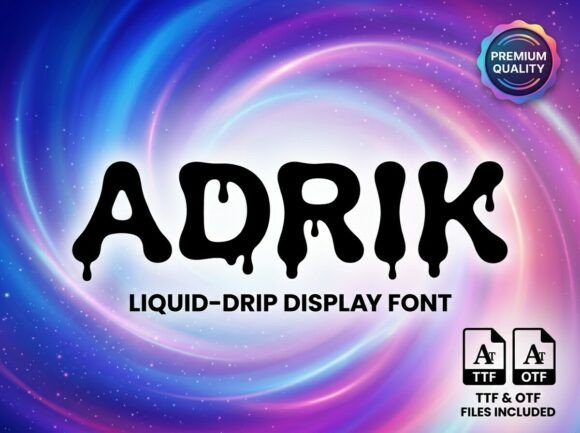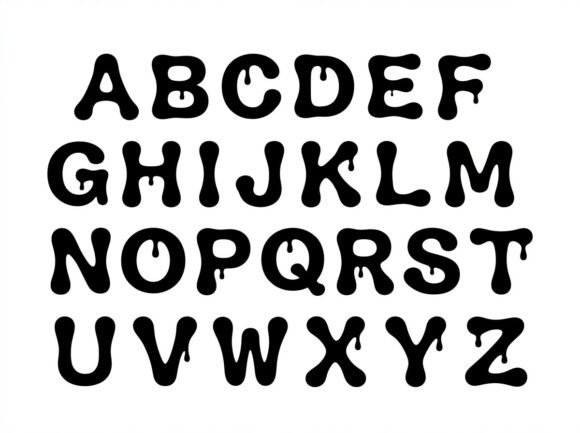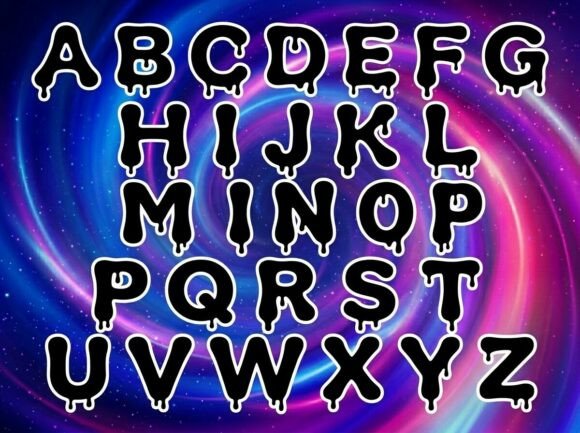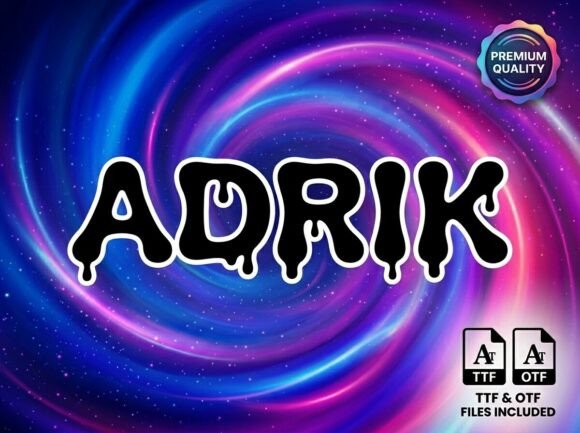
Add a Touch of Liquid Motion to Your Headlines with Adrik Font
Are you looking for a font that can add a dash of excitement and energy to your designs? Look no further than Adrik, a fun and energetic drip display font that’s sure to make your headlines stand out. With its bold, rounded letterforms and gravity-defying “drips” that melt from the baseline, Adrik is the perfect choice for designers who want to create a high-impact visual of fluid movement.
The Unique Characteristics of Adrik Font
Adrik’s unique design features heavy, rounded letterforms that are characterized by their smooth, polished contours and thick silhouette. But what really sets Adrik apart is its gravity-defying “drips” that appear to melt from the baseline, creating a sense of liquid motion that’s sure to capture the attention of your audience. This bold and eye-catching design makes Adrik an extraordinary choice for a wide range of design applications, from streetwear branding and edgy music posters to high-energy gaming headers and bold snack food packaging.
Perfect for Designers Who Want to Make a Statement
Adrik is more than just a font – it’s a statement piece. Its bold and energetic design is perfect for designers who want to create a lasting impression with their work. Whether you’re designing a logo, a poster, or a packaging label, Adrik’s unique style is sure to make your design stand out from the crowd. With Adrik, you can add a touch of handcrafted eccentricity and professional power to your designs, ensuring that they leave a lasting impression on your audience.
One of the best things about Adrik is its versatility. This font can be used in a wide range of design applications, from digital designs like social media graphics and website headers to print designs like posters, flyers, and brochures. Adrik’s bold and eye-catching design makes it perfect for any design project that requires a high level of energy and excitement. Whether you’re a graphic designer, a crafty DIY enthusiast, or a marketing professional, Adrik is a font that’s sure to inspire your creativity and take your designs to the next level.
Key Features of Adrik Font
- Bold and energetic design: Adrik’s bold and energetic design makes it perfect for headlines, titles, and other design elements that require a high level of impact.
- Gravity-defying “drips”: Adrik’s unique “drips” create a sense of liquid motion that’s sure to capture the attention of your audience.
- Smooth, polished contours: Adrik’s smooth, polished contours give it a sleek and sophisticated look that’s perfect for a wide range of design applications.
- Thick silhouette: Adrik’s thick silhouette makes it perfect for designs that require a high level of visibility and impact.
- Handcrafted eccentricity and professional power: Adrik’s unique design combines handcrafted eccentricity with professional power, making it perfect for designers who want to create a lasting impression with their work.
How to Use Adrik Font in Your Designs
Using Adrik in your designs is easy. Here are a few tips to get you started:
- Use it as a headline font: Adrik’s bold and energetic design makes it perfect for headlines and titles.
- Experiment with different colors: Adrik’s unique design looks great in a wide range of colors, so don’t be afraid to experiment and find the perfect color for your design.
- Combine it with other fonts: Adrik can be paired with a wide range of fonts, so feel free to experiment and find the perfect combination for your design.
- Use it in digital and print designs: Adrik can be used in both digital and print designs, making it a versatile font that’s perfect for a wide range of design applications.
Adrik is a fun and energetic drip display font that’s sure to add a touch of liquid motion to your headlines. With its bold, rounded letterforms and gravity-defying “drips,” Adrik is the perfect choice for designers who want to create a high-impact visual of fluid movement. Whether you’re a graphic designer, a crafty DIY enthusiast, or a marketing professional, Adrik is a font that’s sure to inspire your creativity and take your designs to the next level.